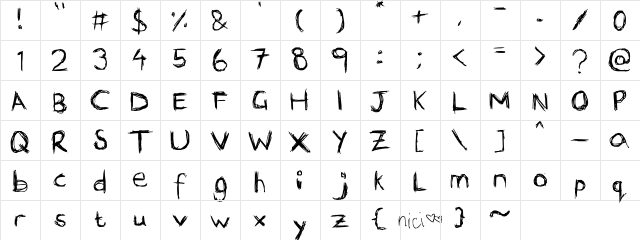
scri-bubble Regular
Design Context for scri-bubble Typeface
scri-bubble trades formality for fun, with bouncy, characterful letterforms that bring warmth and energy to any project.
Font Pairing: Pairs well with a rounded or humanist sans for body copy, maintaining the friendly tone without relying on scri-bubble to carry extended reading.
Pro Tip: Avoid using scri-bubble for long passages of text — it works best for headlines, labels, and short calls to action.